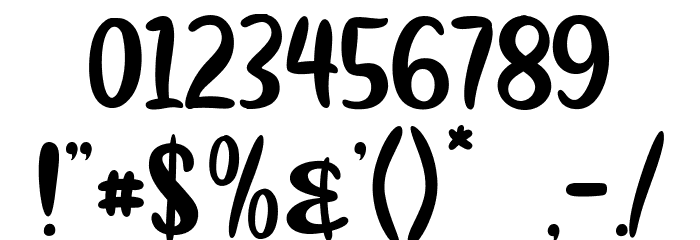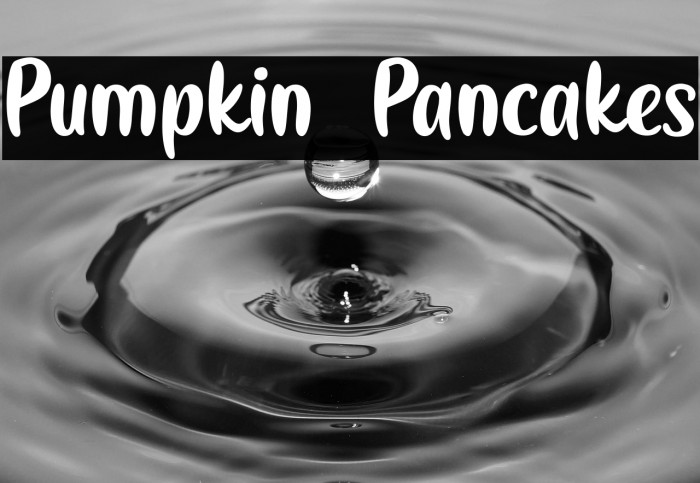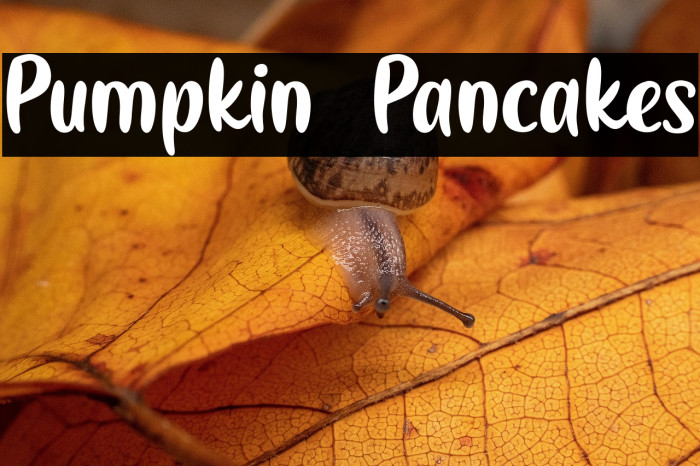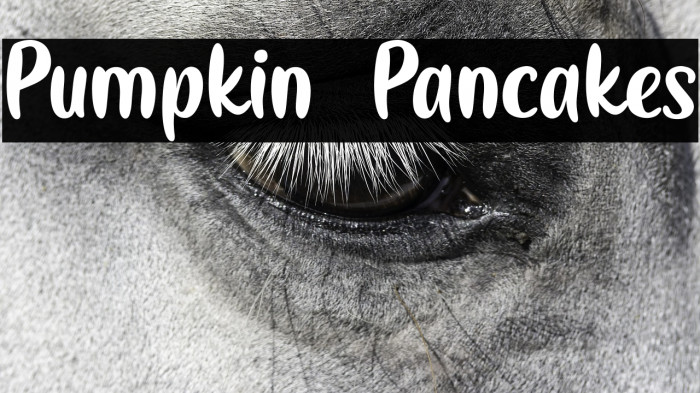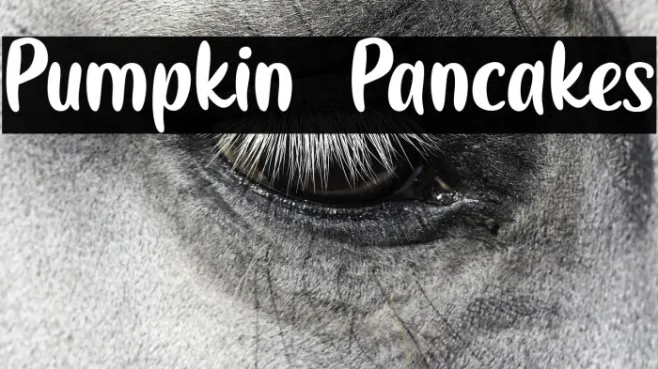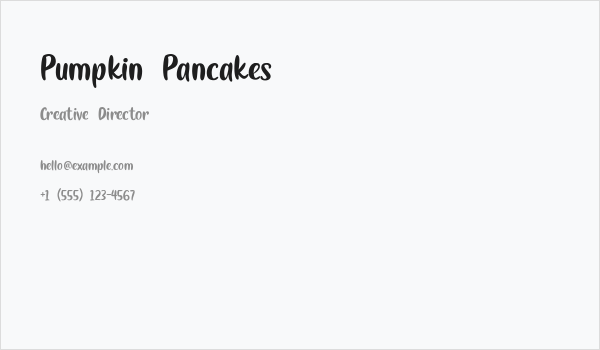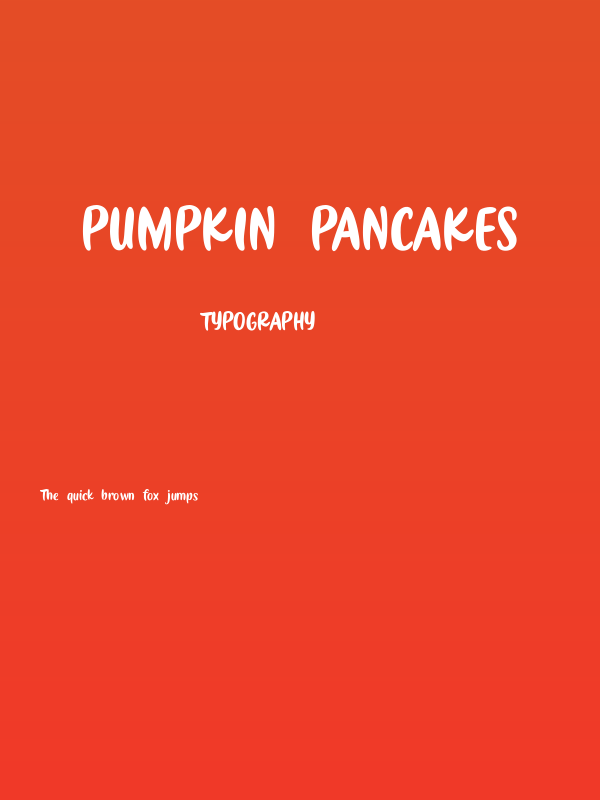
Pumpkin Pancakes Font
Pumpkin Pancakes Description
This playful and bold font features a handwritten style with smooth, rounded edges and a slightly irregular baseline, giving it a casual and friendly appearance. The uppercase letters are bold and prominent, while the lowercase letters maintain a consistent flow, enhancing readability. The numerals are clear and distinct, matching the overall style of the alphabet. Special characters are creatively designed, adding a whimsical touch to the font. Its thick strokes and rounded forms make it ideal for projects that require a warm and inviting feel.